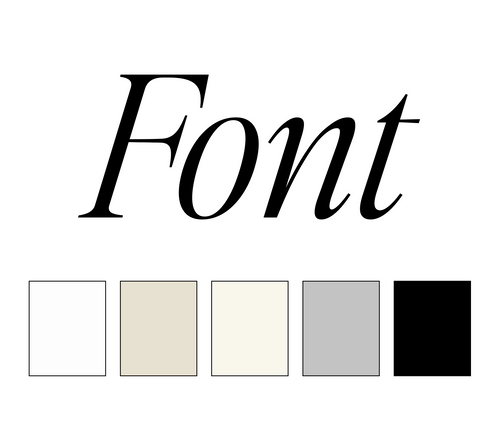
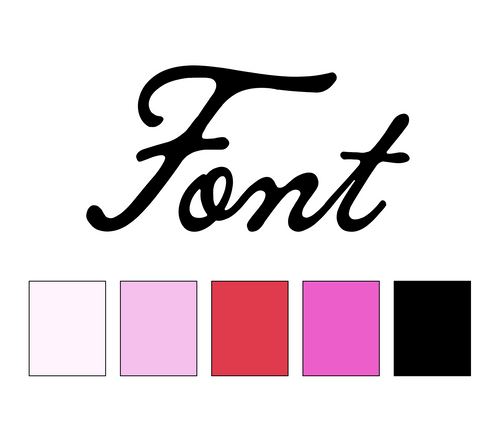
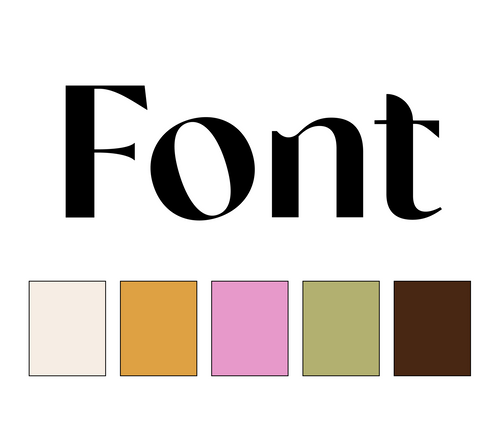
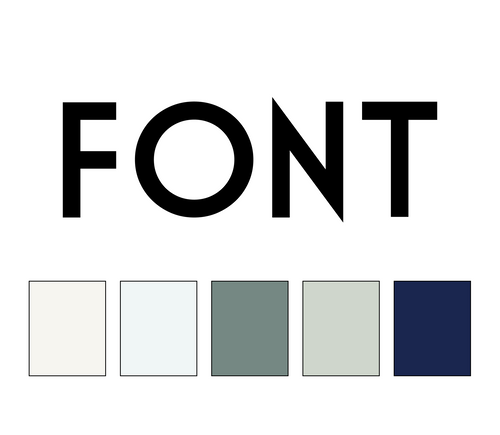
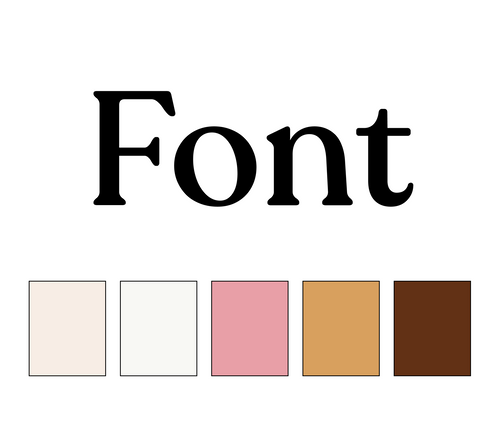
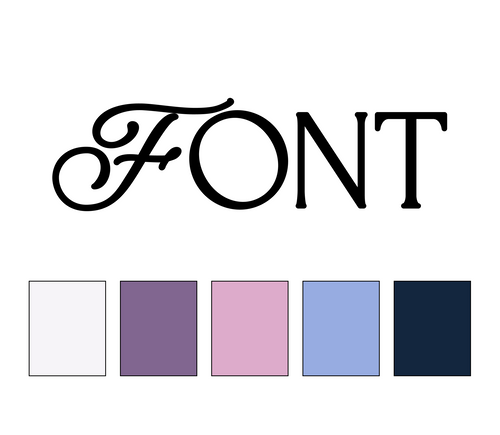
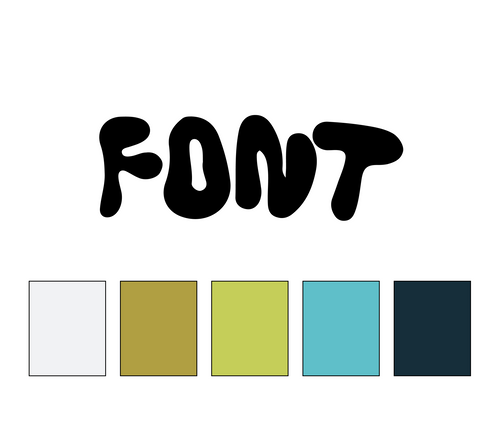
How to Pair Fonts with Color Palettes 🎨
Learn how to create expert-level font pairings for any brand project. This is a fun, nerdy deep-dive on brand fonts ☺
what you'll learn in this workshop:
-
The Psychology of Font Styles
We'll explore the different psychological influences of font styles such as serif, sans serif, slab, script, handwritten fonts, etc. You'll see how each style tells its own story!
-
How to Pair Fonts with Color Palettes
Get ready to play matchmaker! I'll teach you the art of creating a brand personality that shines through your color and font pairings.
-
Customizing Fonts to Match a Design Style
Here’s where you get to be the artist! We'll delve into the exciting ways you can tweak fonts to perfectly suit your brand with things like letter-spacing, font weight, and cool text transformations.
-
Heading Fonts vs. Body Fonts
We'll dive into the differences between heading and body fonts. Plus, as a special treat, I'll share some of my all-time favorite body fonts and show you how top brands use them like pros.
-
How to Create a Brand Font Hierarchy
Ready for some font magic? I'll craft a brand font hierarchy live in this workshop! You'll learn how to make easy-peasy font guidelines that you (or your clients) can follow effortlessly.
-
Font Trends & Predictions
Let's talk about what's hot in the font world! We'll explore the trendiest fonts of the year and peek at some trailblazing brands leading the typography charge. Get ready to be inspired and stay ahead of the curve!
"What topics will be covered in this workshop?"
In this workshop, we're going to explore how to pair fonts with our brand color palettes.
Here are the topics we'll explore:
- The Psychology of Font Styles
- How to Pair Fonts with Color Palettes
- Customizing Fonts to Match a Design Style
- Heading Fonts vs. Body Fonts
- How to Create a Brand Font Hierarchy
- Font Trends & 2024 Predictions